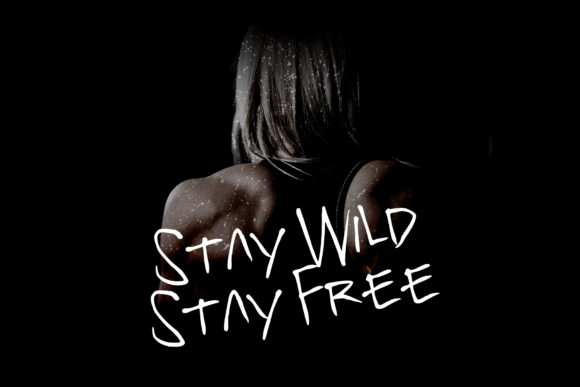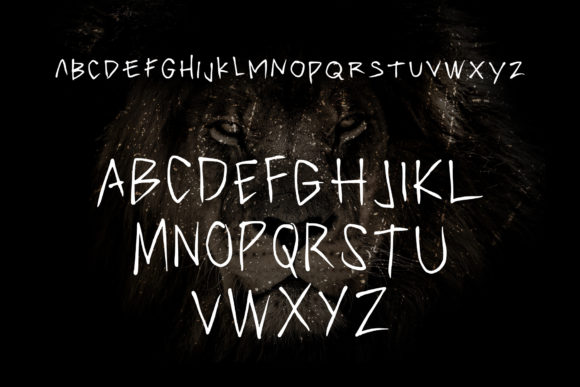
Introduction to Primal Font
Primal is a simple and unique handwritten font.
Its natural style makes it incredibly fitting to a large pool of designs The only limit is your imagination.
Key Features of Primal Font